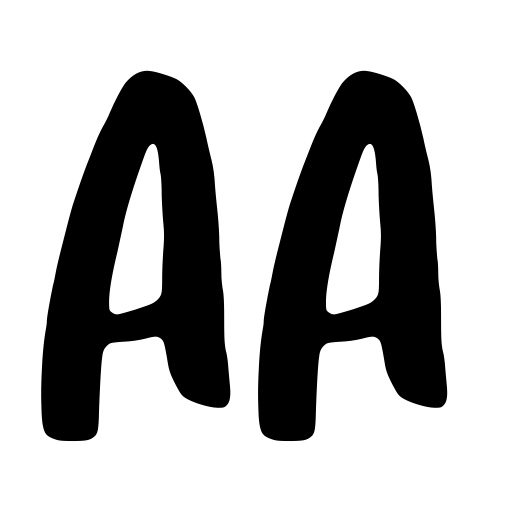
Brownbear is a friendly and playful sans serif font with a hand-drawn, casual feel. Its slightly irregular letterforms and varied stroke widths give it a warm, approachable personality ideal for informal, cheerful designs. This font works wonderfully for branding, packaging, children’s products, and any creative projects that benefit from a fun and personal touch.
Brownbear Font